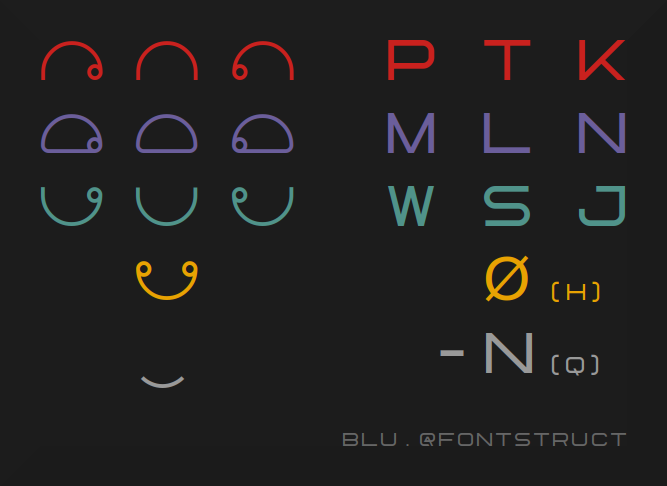
• ~ script to write toki pona ~
note: "h" is used for syllables beginning with a vowel. and "q" is used for a final "n".
Just for fun, and also for more completeness, add: an upside-down version of h, typed as z; open-mouthed versions of h, w, s, j, and z, typed as x, b, d, g, and r; and two horizontal lines in the style of e and o, typed as y. There should also be base-12 numerals, with digitsas characters 0, 1, 2, 3, 4, 5, 6, 7, 8, 9, r, and v.
Oh, by R and V i meant F and V. Oops!